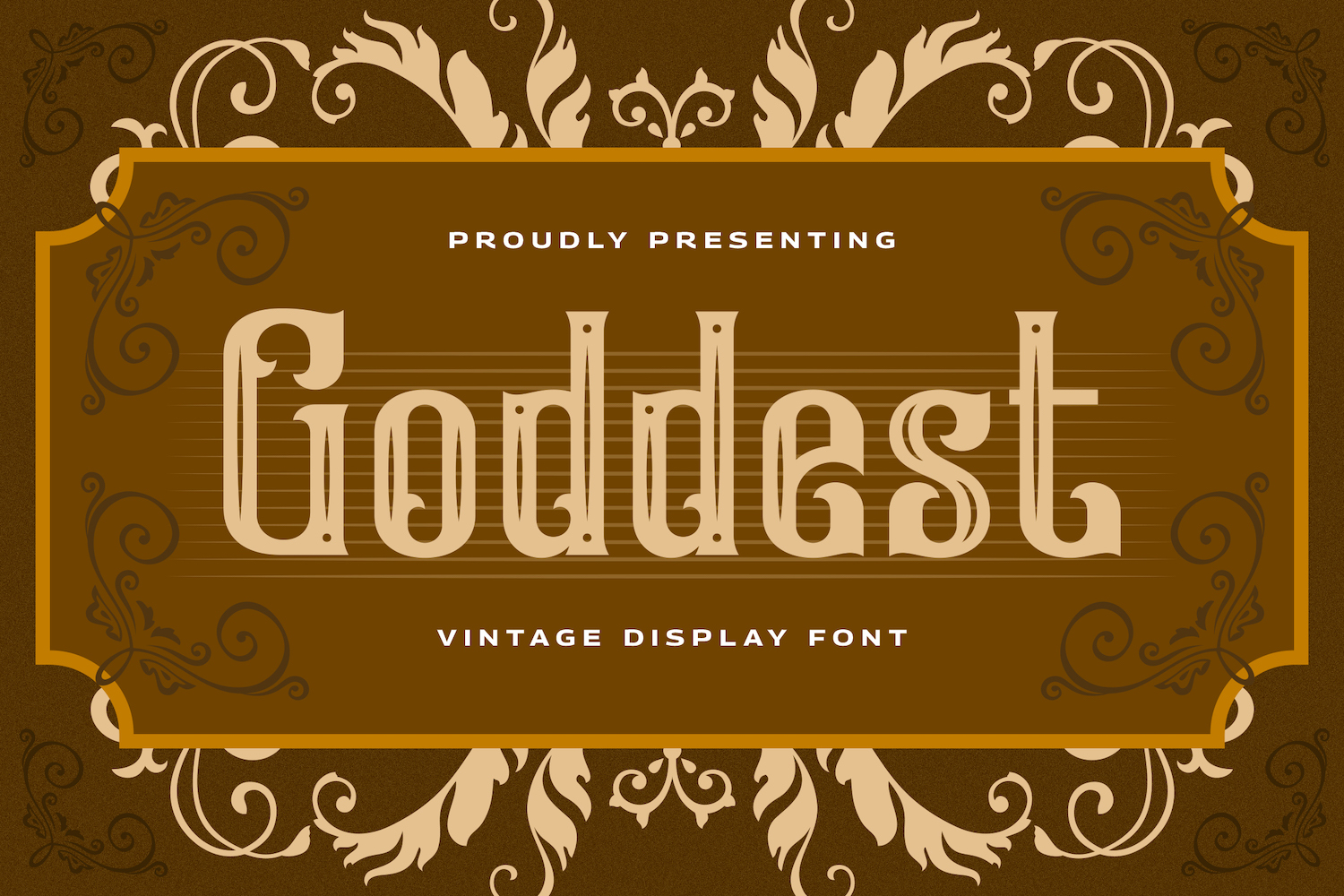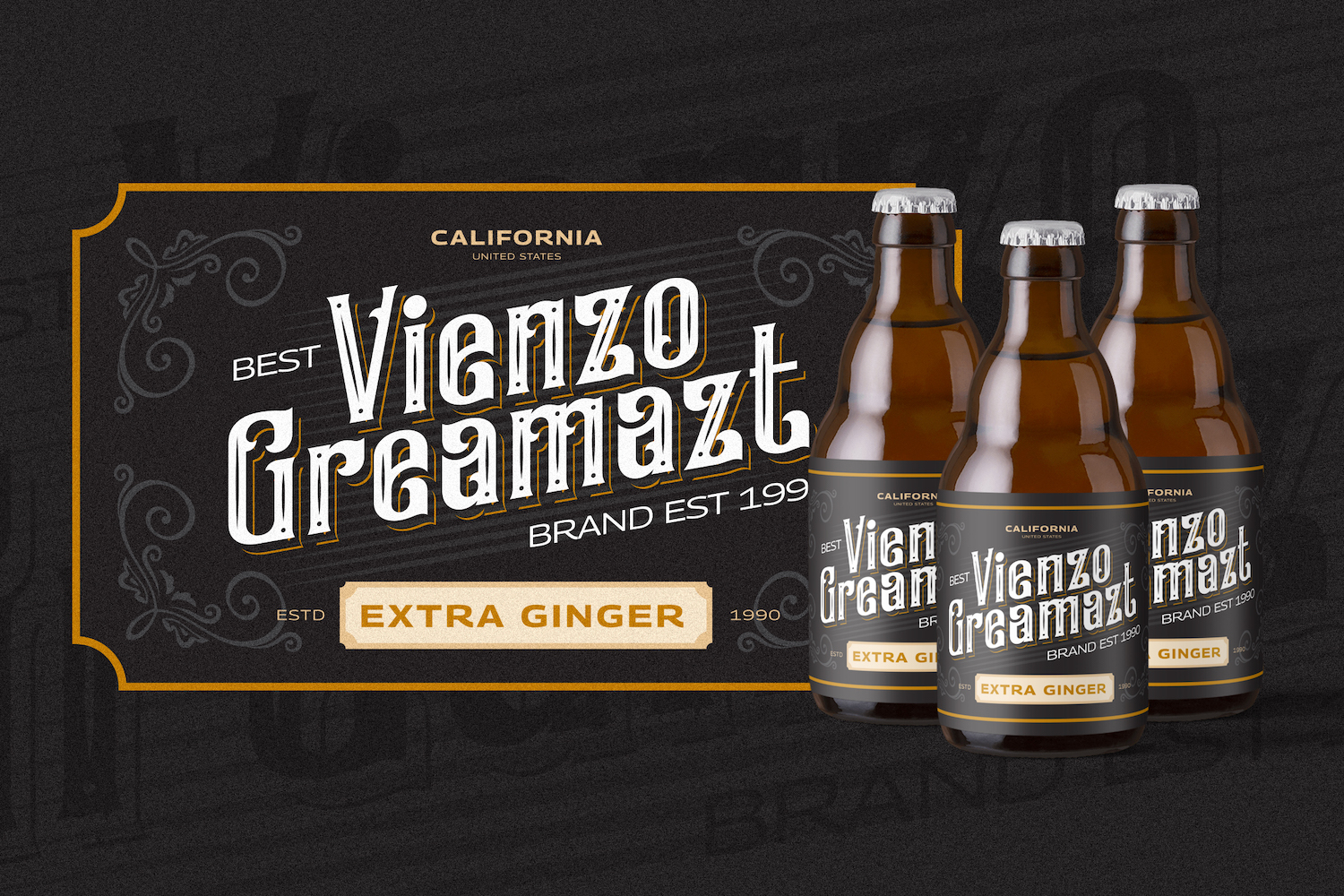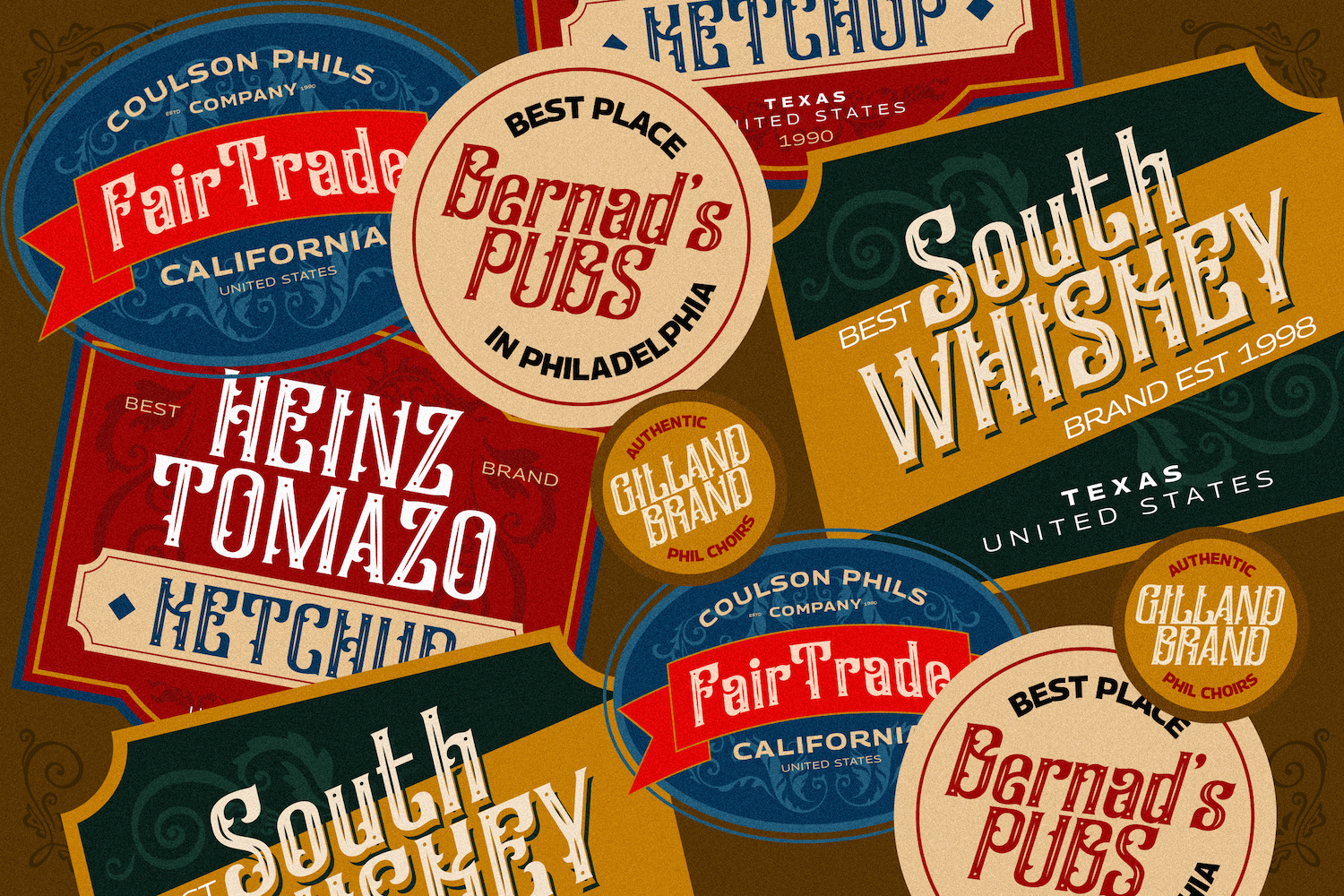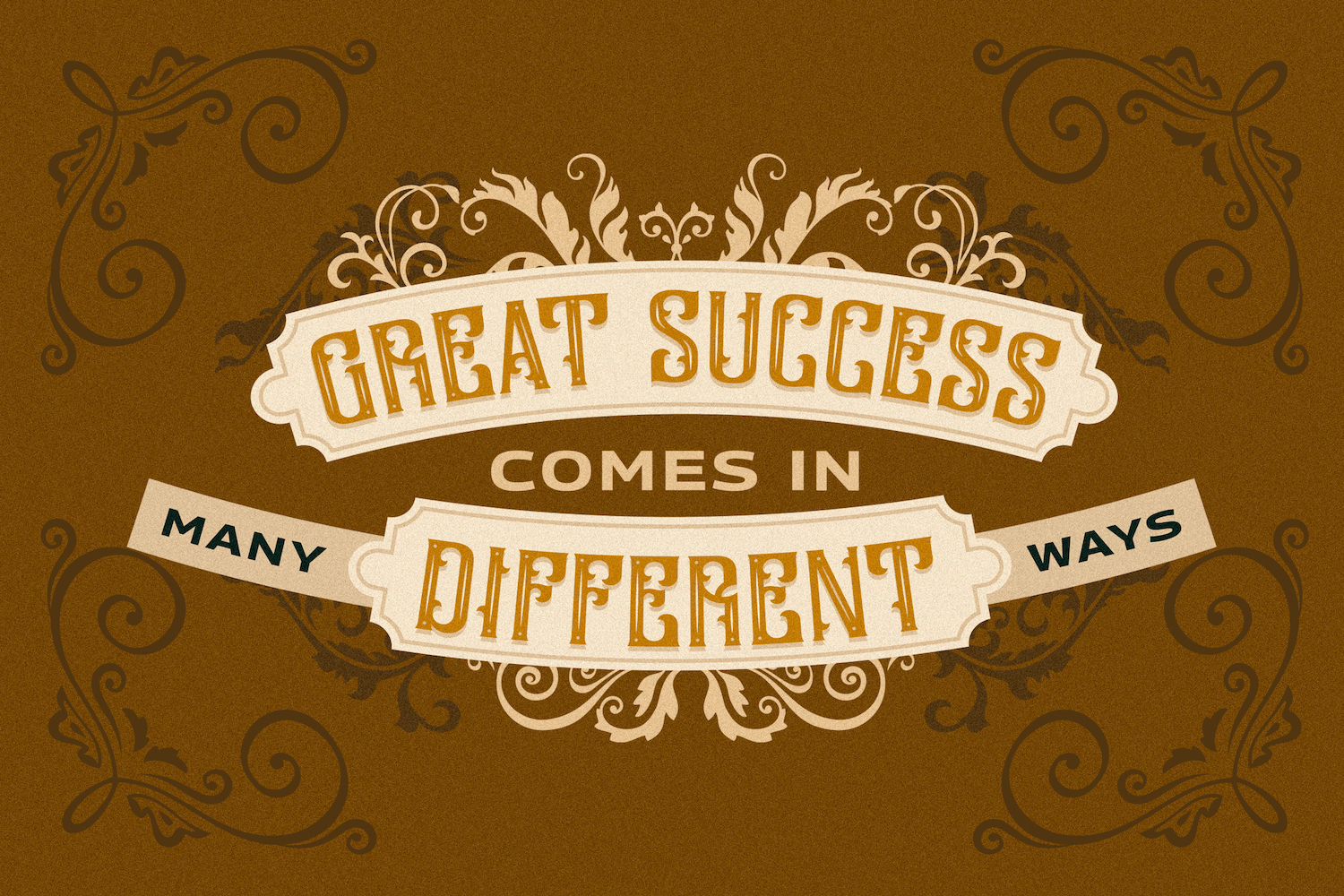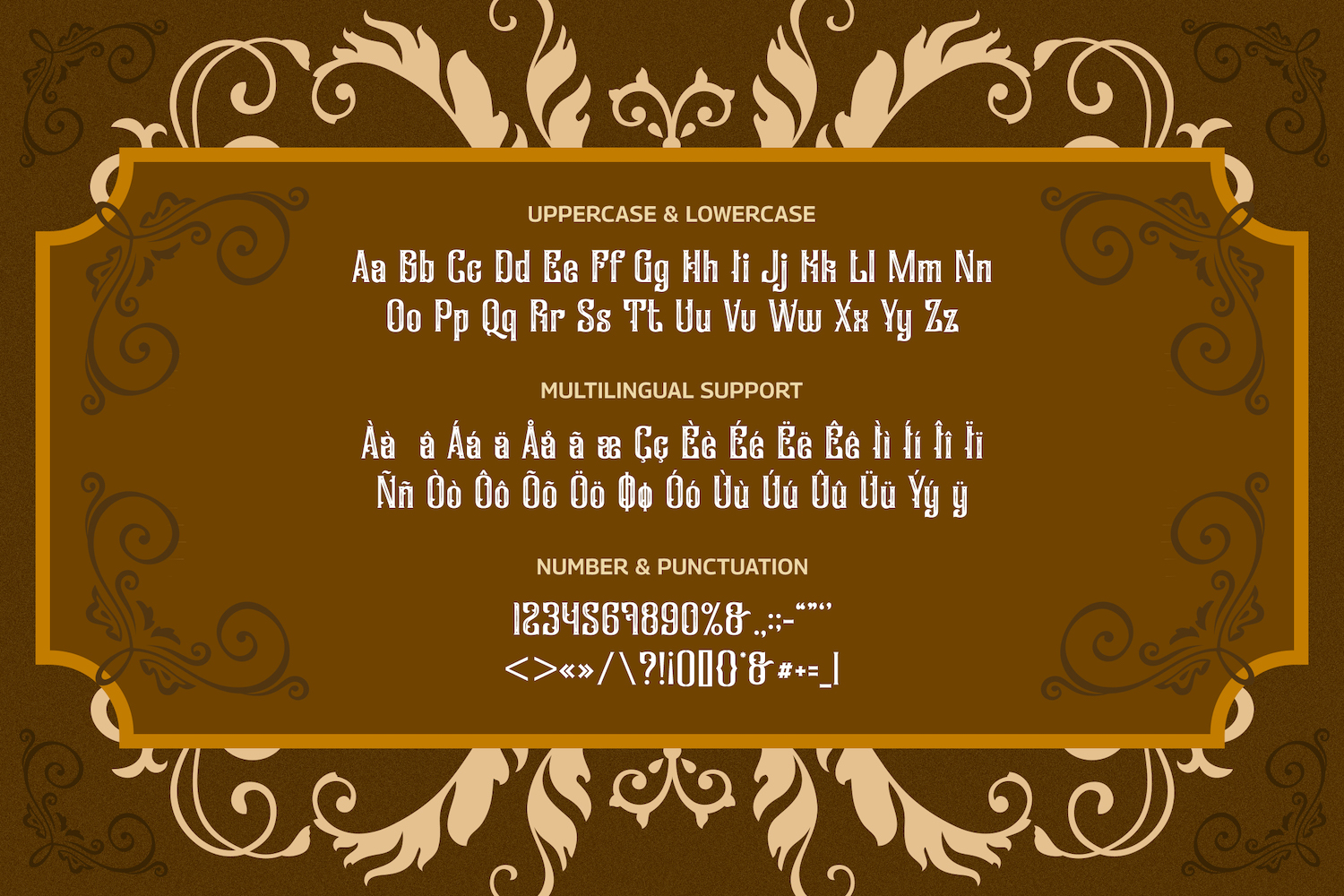
Goddest is a vintage display font that draws inspiration from old liquor labels, Victorian signage, and retro product packaging. With its elegant curves, vertical decorative lines, and striking contrast between thick and thin strokes, Goddest evokes a sense of timeless sophistication. It’s a perfect choice for anyone looking to bring ornate, historical charm into their design work.
Equipped with full uppercase and lowercase letters, multilingual support, numbers, and punctuation, Goddest is ideal for branding, beer and spirit labels, pub signage, apparel design, and retro-themed promotions. Whether you’re creating vintage packaging or stylish typographic art, Goddest gives your designs a refined yet bold personality.